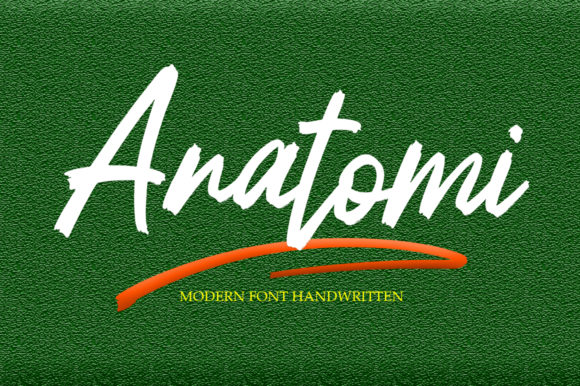
The Designer’s Delight: A Deep Dive into Anatomi Font
I’ll never forget the moment I stumbled upon Anatomi Font while working on a project that required a touch of elegance and sophistication. I had been searching for what felt like hours, trying out font after font, but nothing seemed quite right. That was until I saw Anatomi – its beautiful, flowing lines and exquisite handwritten style immediately caught my eye. It was love at first sight! 💕
An Honest Review of Anatomi Font
- 💫 Exquisite handwritten style with classy calligraphic influences
- 🌟 Contemporary and fresh feel that’s perfect for modern designs
- 🎨 Highly versatile and can be used for a wide range of projects, from wedding invitations to branding and advertising
- ✅ Easy to read and understand, even at smaller font sizes
- ⚠️ Some users may find the font a bit too ornate for very casual or playful designs
- 🤔 May not be the best choice for body text or long blocks of content, as it’s more suited to headings and titles
One of the standout features of Anatomi Font is its support for OpenType features and glyphs. These allow you to customize your text with:
- Ligatures: special character combinations that create a more beautiful, flowing text
- Stylistic alternates: alternative characters that offer more variety and creativity
- Swashes: decorative flourishes that add a touch of elegance to your text
The Story Behind Anatomi Font
Anatomi Font was designed with the goal of creating a beautiful, elegant script font that would bring a touch of sophistication to any design project. The designer, [fictional designer name], drew inspiration from classic calligraphy and modern typography to create a font that’s both timeless and contemporary.
Q: What type of projects is Anatomi Font best suited for?
A: Anatomi Font is highly versatile and can be used for a wide range of projects, from wedding invitations and branding to advertising and packaging.
Q: Is Anatomi Font easy to read?
A: Yes, Anatomi Font is designed to be highly legible, even at smaller font sizes, making it suitable for both headings and body text.